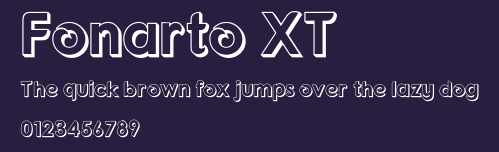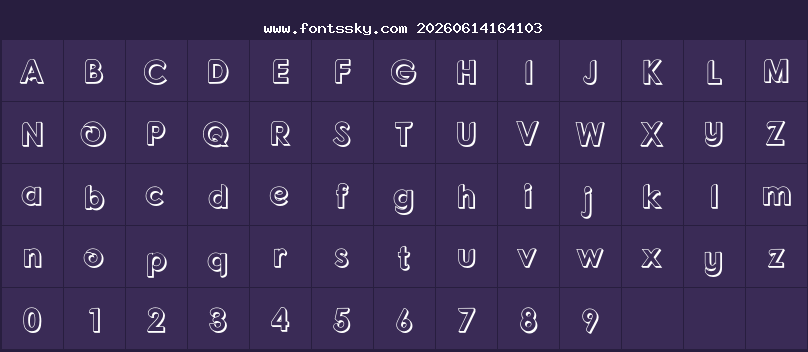
• Font Name: Fonarto XT
• Font ID: ArwanSutanto: Fonarto XT: 2014
• Full Font Name: FonartoXT
• PostScript Name: FonartoXT
• Character Count: 216
• Designer: Arwan Sutanto
• Manufacturer: Arwan Sutanto
About Fonarto XT.otf
Fonarto XT.otf is a modern, elegant sans-serif font designed for ultimate readability and visual harmony. Perfect for branding, headlines, web design, and print materials.